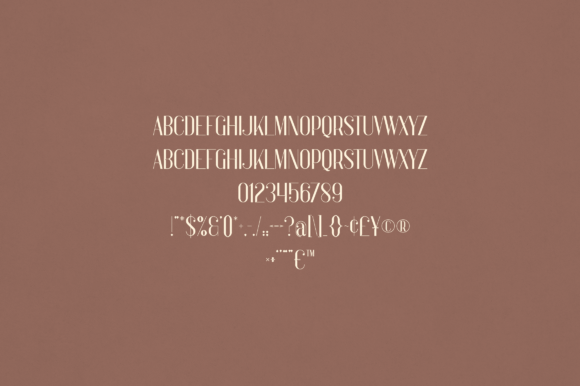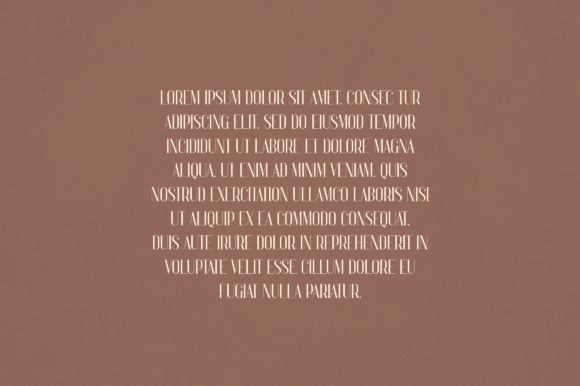
Introduction to Peregrine Font
Peregrine is an elegant and versatile sans serif font that will make your typography truly unique.
It will enchant every logo, branding, headline, or plain text This font is perfect for branding projects, home-ware designs, product packaging, magazine headers – or simply as a stylish text overlay to any background image.
Key Features of Peregrine Font
Why Choose Peregrine Font?
Peregrine Font offers exceptional quality and versatility, making it a valuable addition to your design toolkit. Whether you’re creating for personal projects or commercial use, Peregrine Font delivers professional results.